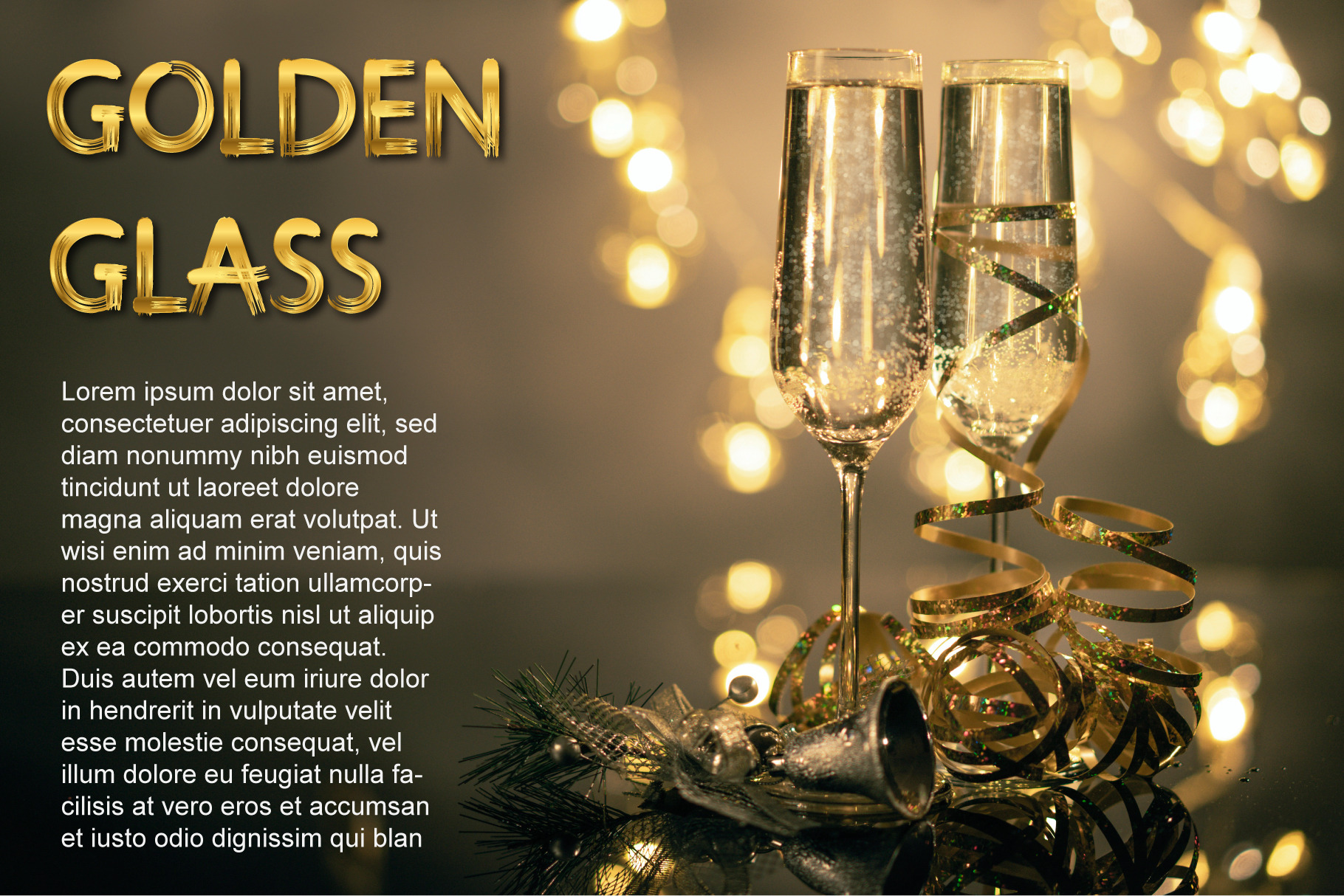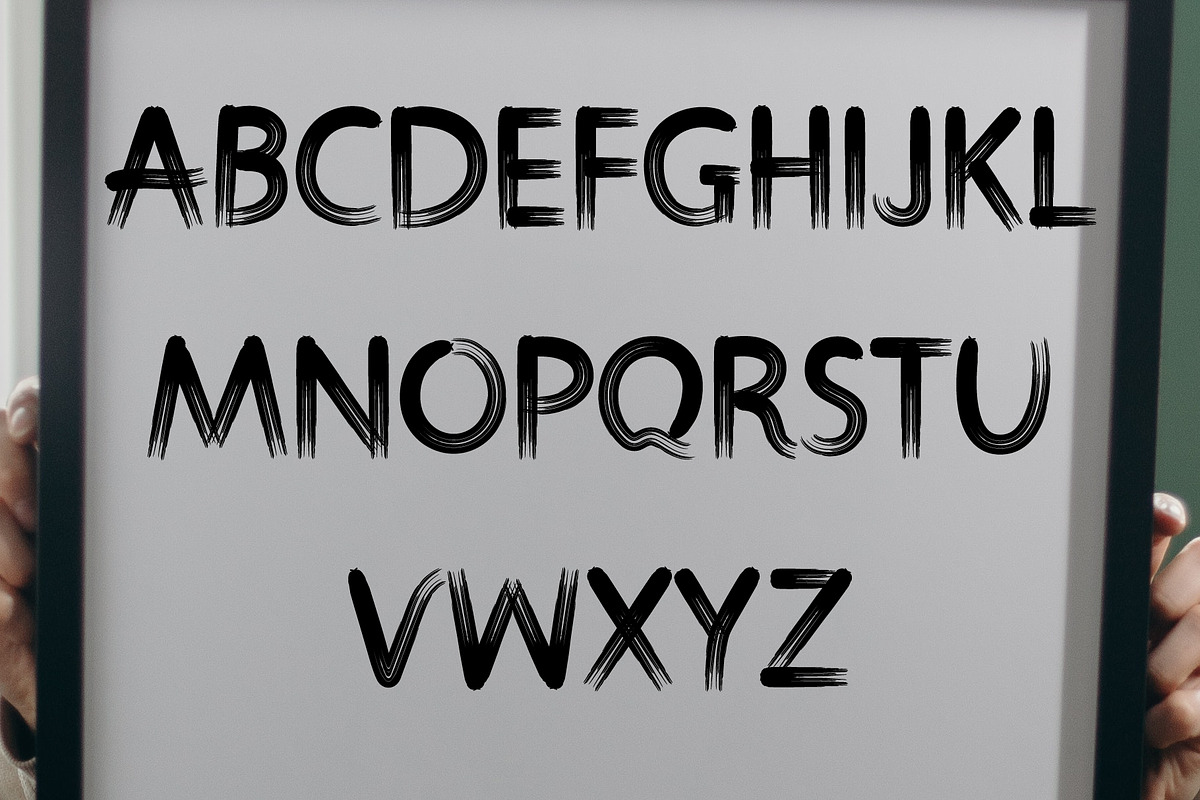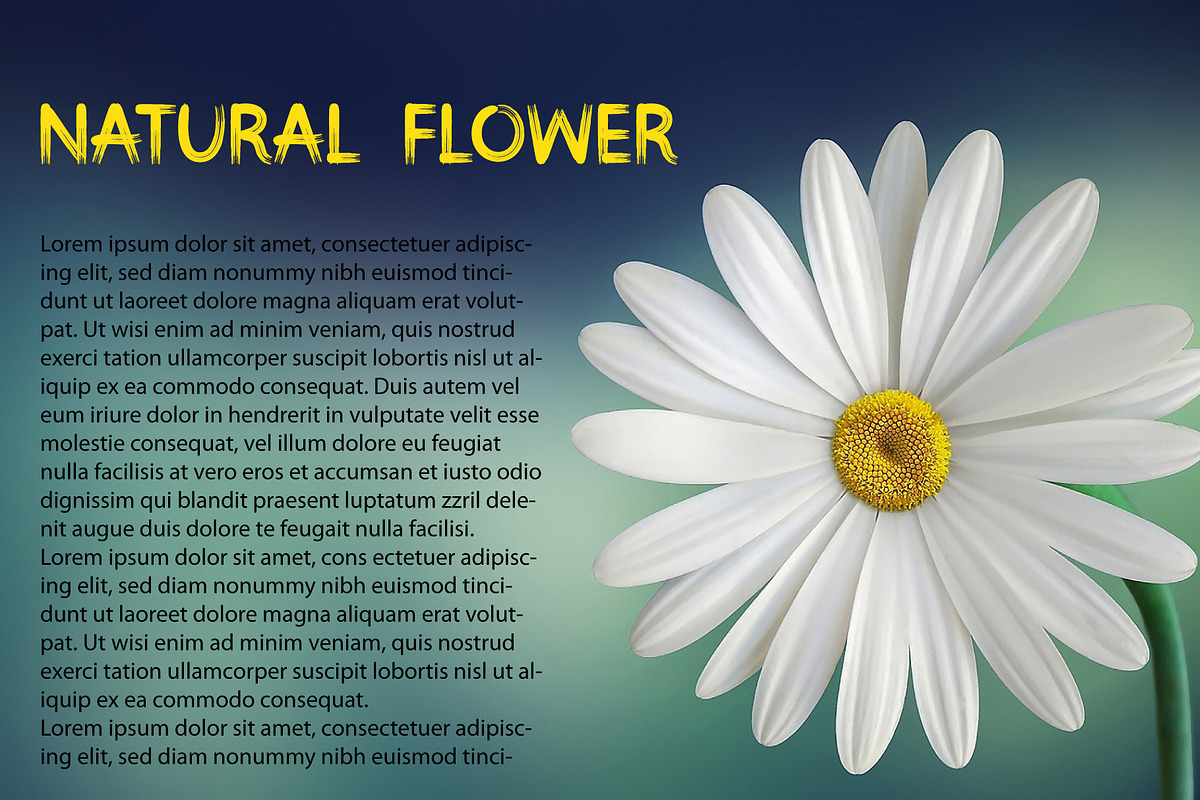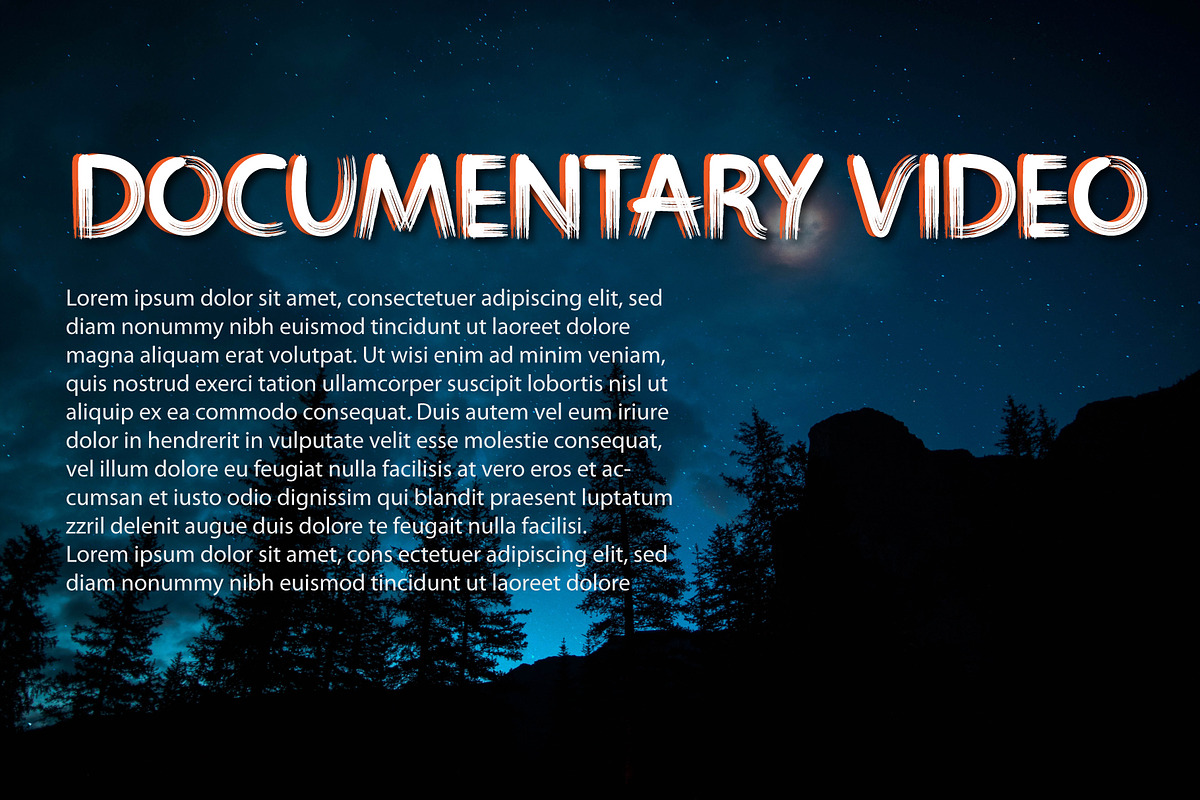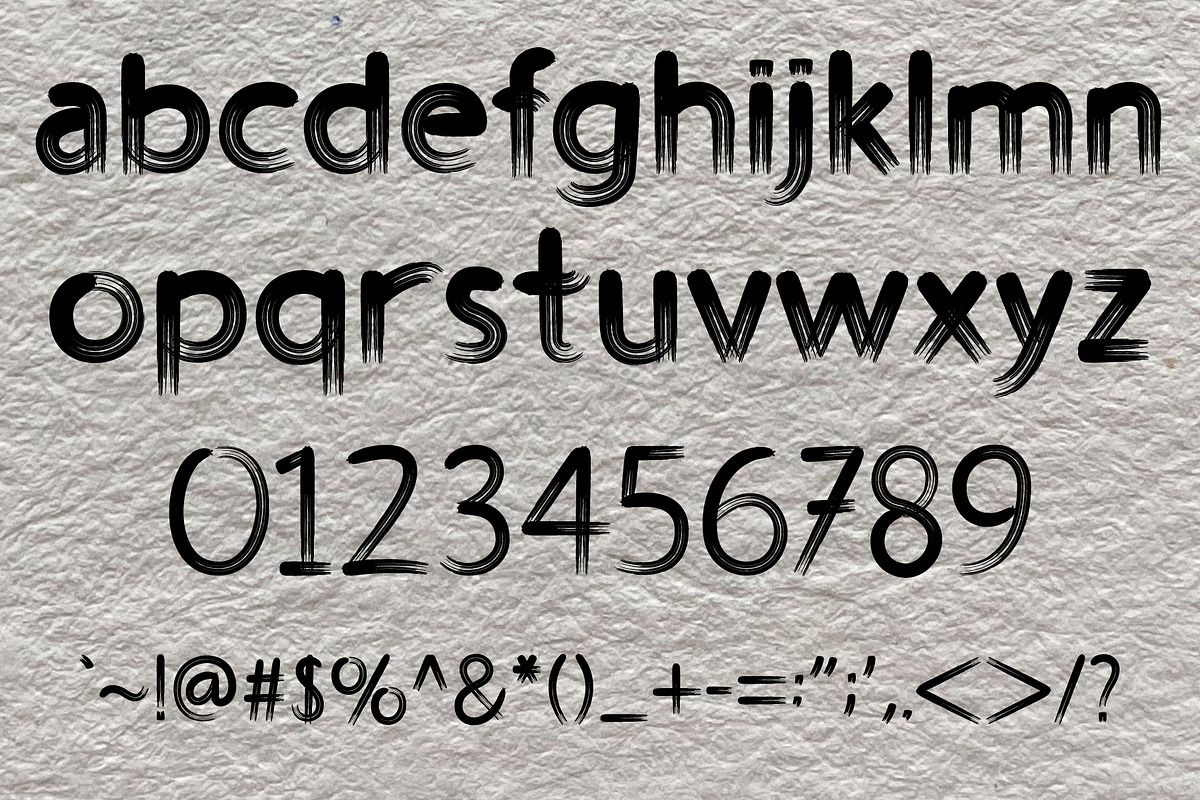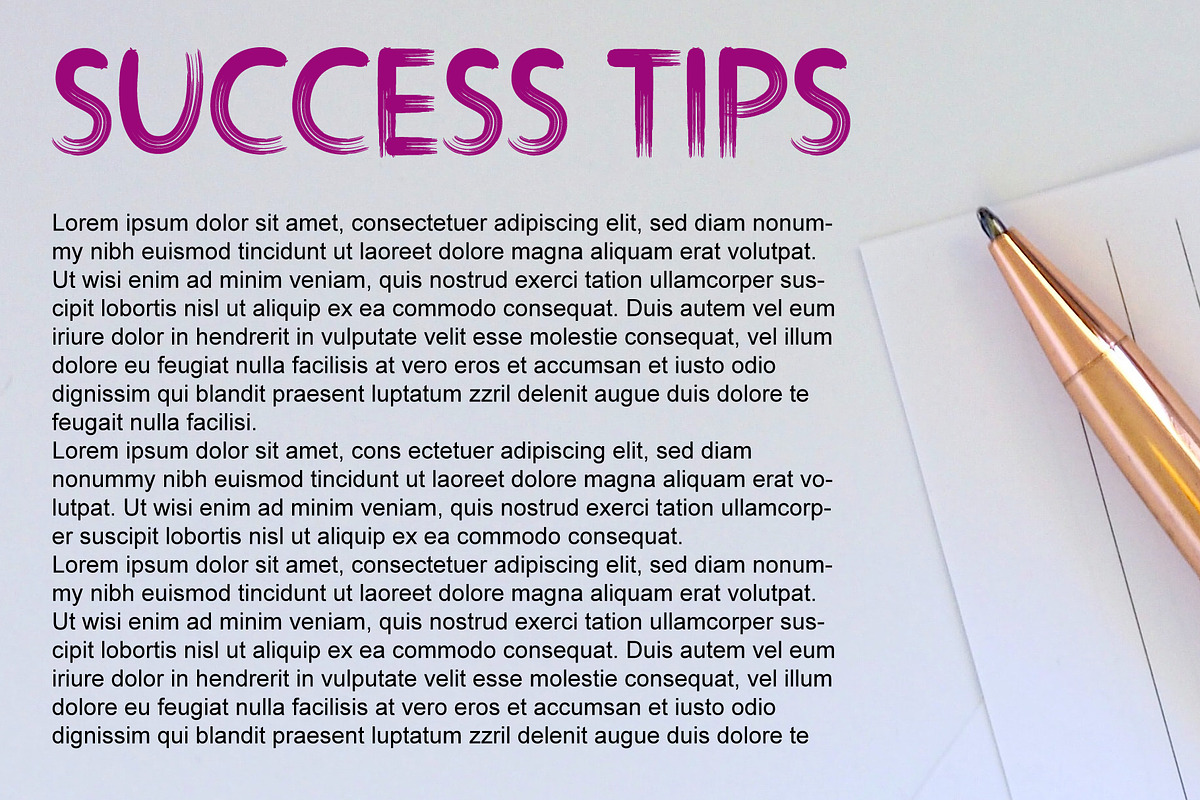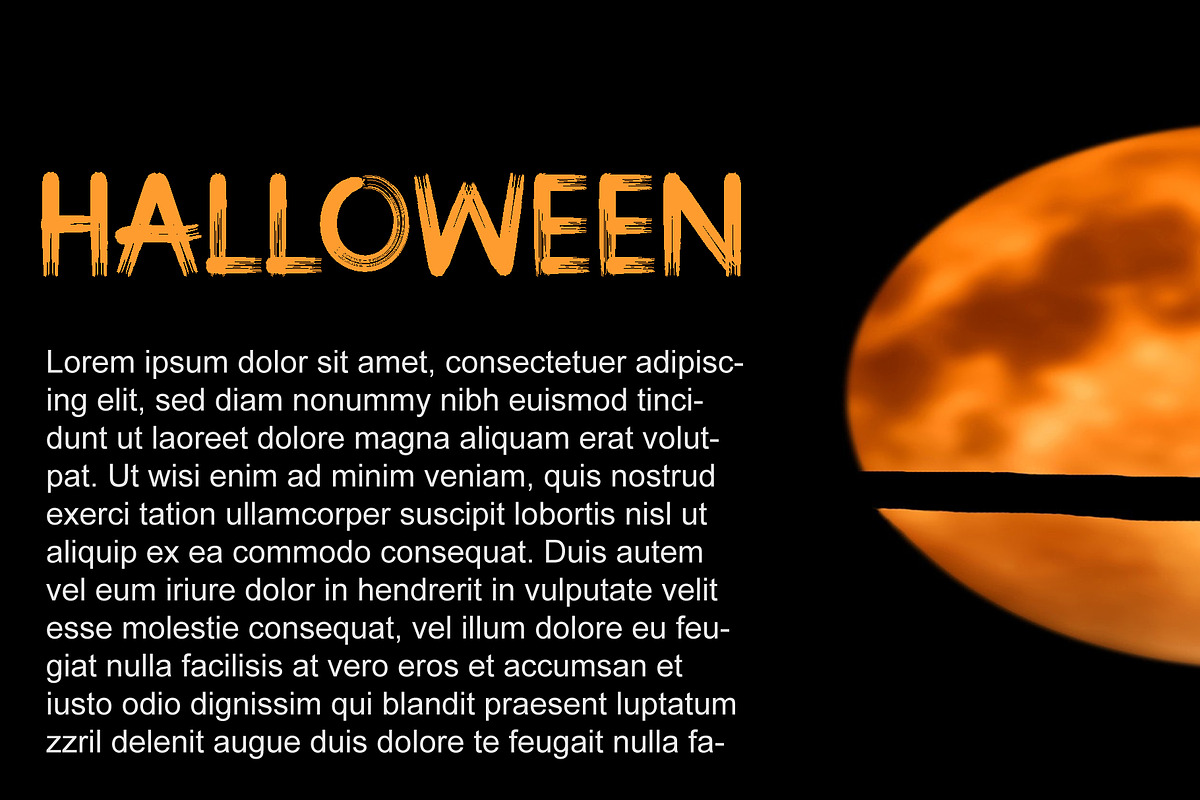
Magic Brush Fonts
About Fonts : Magic Brush is a very compatible font for Movie Titles, Video Titles, News Headlines, Wedding Invitations, Documentary Movies, Store Names, Product Labels, and more.